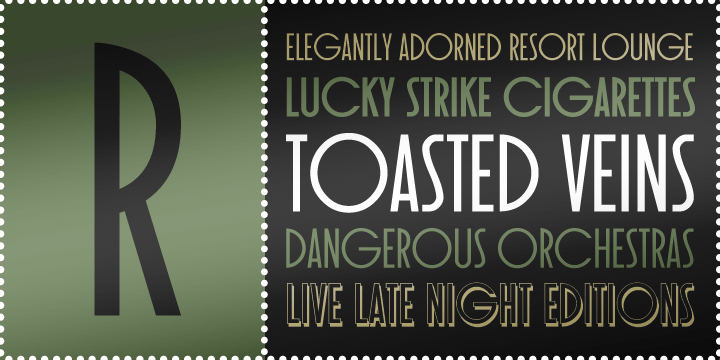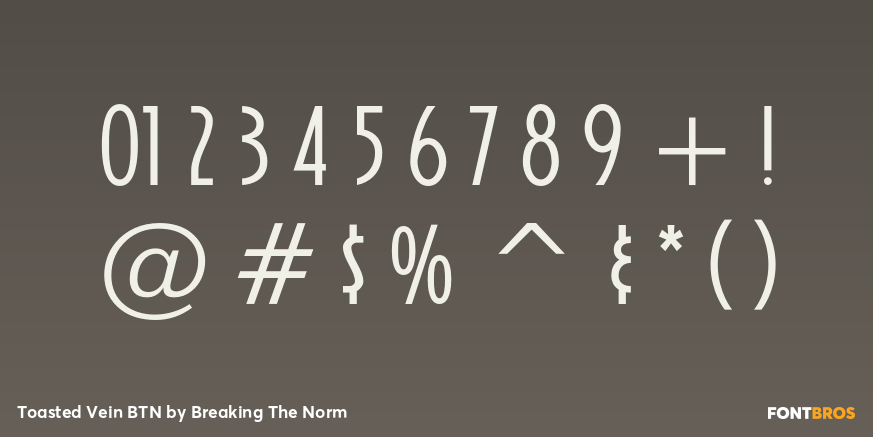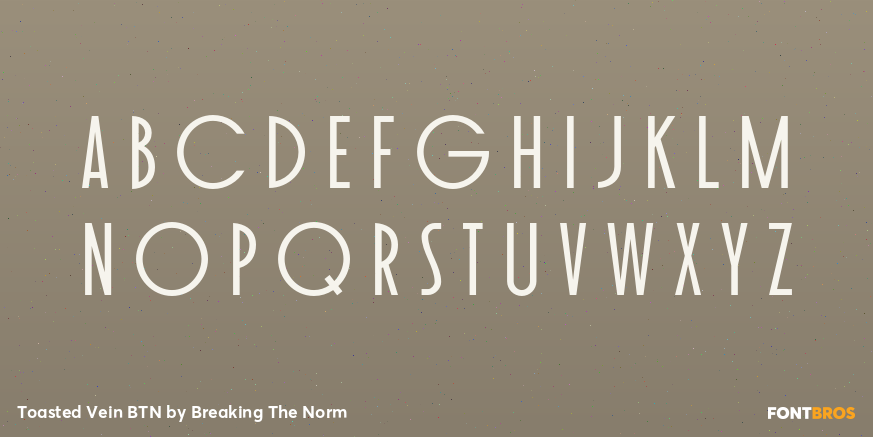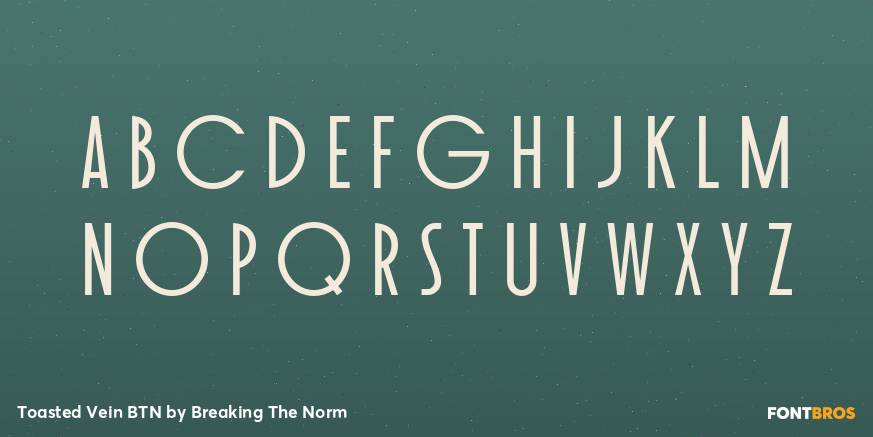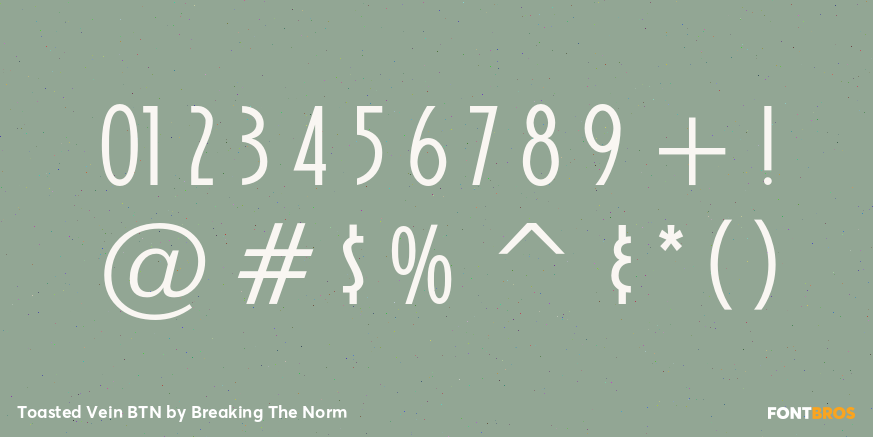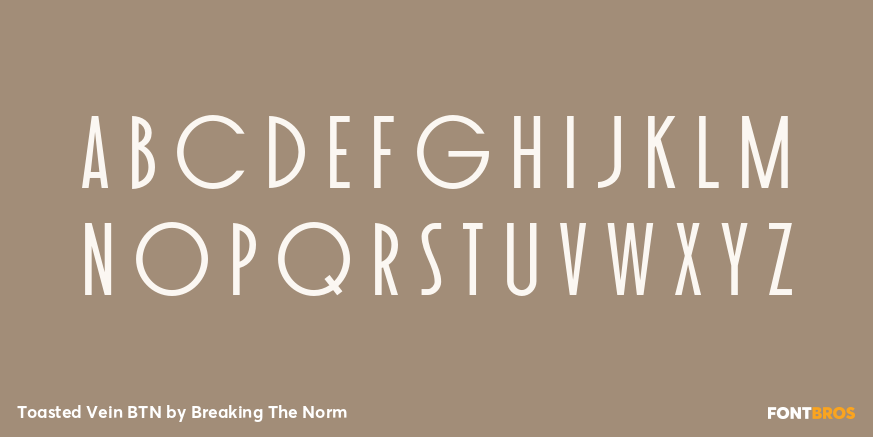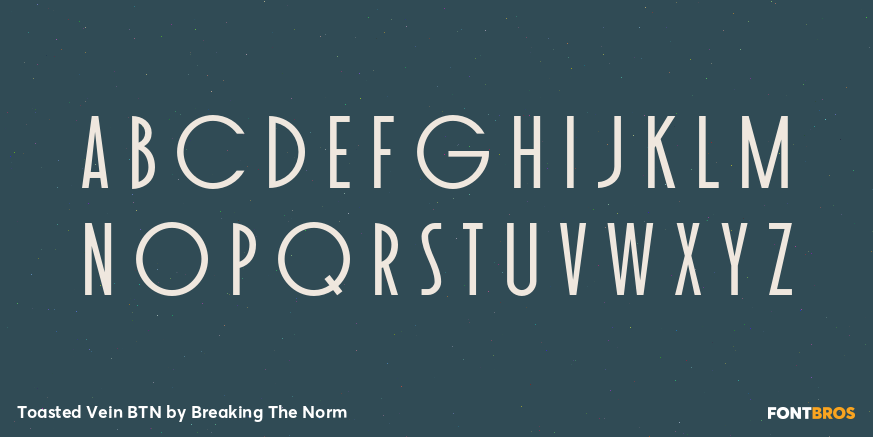
Toasted Vein BTN
Font Family by Breaking The Norm
Toasted Vein BTN is a tight Deco-inspired display family with a crisp all-caps presence and strong headline appeal. Its compact structure gives it a bold, graphic personality that works especially well for logos, titling, posters, signage, packaging, and vintage-flavored branding. The core Regular and Bold styles provide a clean Art Deco foundation, while the Inline and Shadow companions expand its range for more stylized and dimensional display work. Toasted Vein BTN is a strong choice for projects that want a streamlined retro voice with extra visual punch.